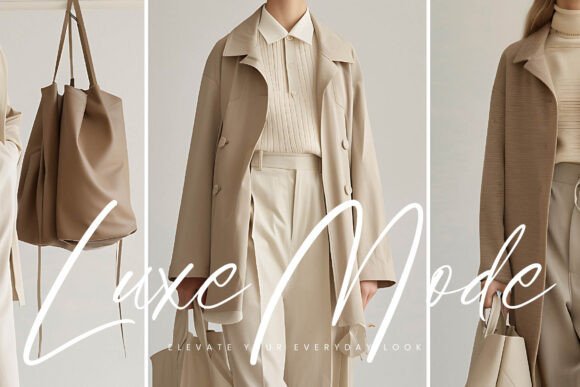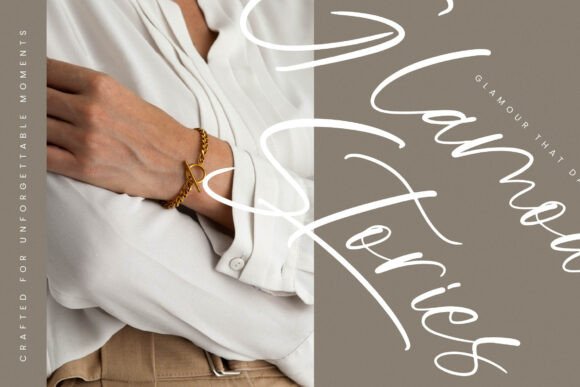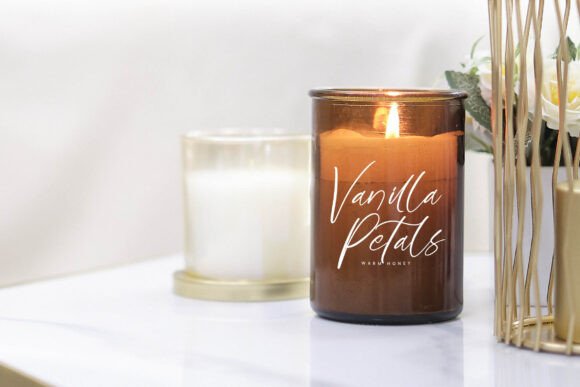
Introduction to Goldbrush Delights Font
Add a touch of elegance with Goldbrush Delights, a modern handwritten font with a luxurious feel.
Featuring ligatures and swashes, this font is ideal for high-end branding, wedding invitations, logo design, and stylish social media content Its smooth flow and graceful curves bring sophistication to any project.
Key Features of Goldbrush Delights Font
Why Choose Goldbrush Delights Font?
Goldbrush Delights Font offers exceptional quality and versatility, making it a valuable addition to your design toolkit. Whether you’re creating for personal projects or commercial use, Goldbrush Delights Font delivers professional results.